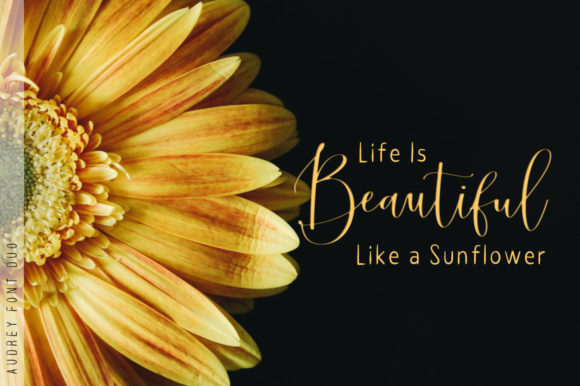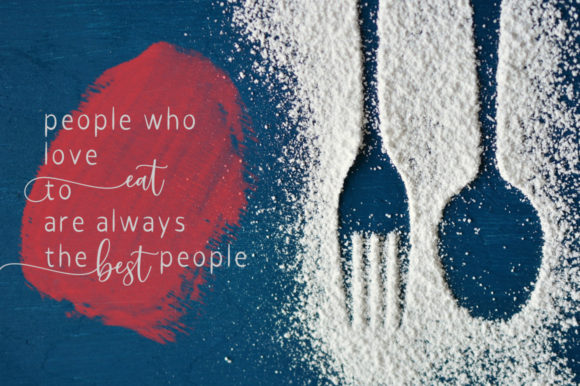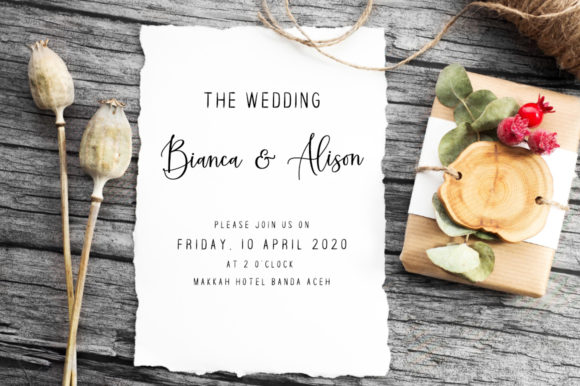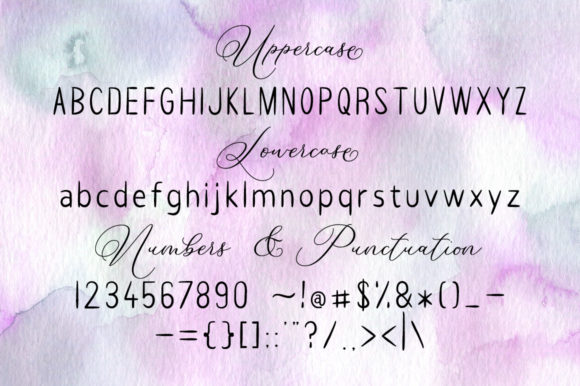
Audrey Font
About Audrey Font
Audrey is a beautiful and magnificent script duo. It contains two stunning scripts that create a perfect stylistic interplay!